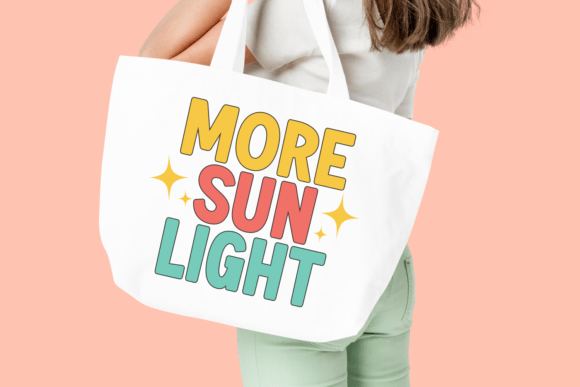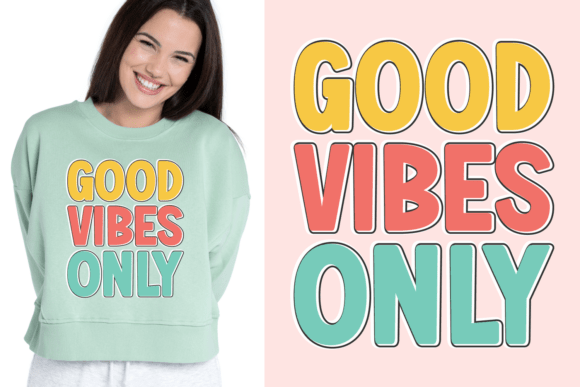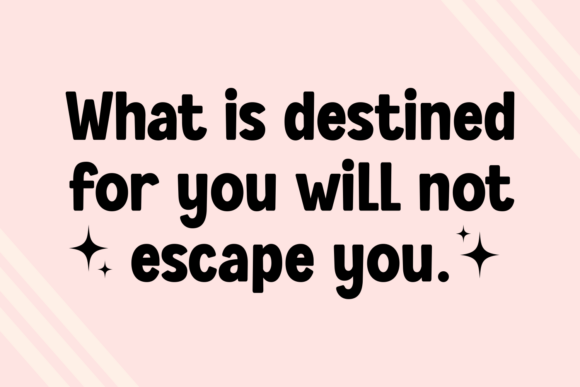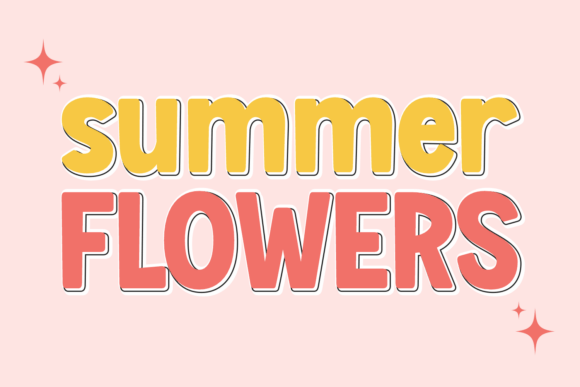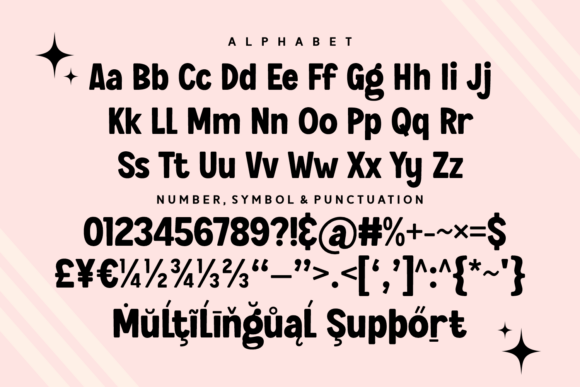
Unlock the Power of Bold Typography
Imagine you’re brainstorming ideas for your brand’s next big campaign, and you stumble upon the perfect concept – but the design just needs that one thing to make it pop. You’re scrolling through your font library, and suddenly, it hits you: the ultra-heavy display font that screams “we’re here to make a statement.” This is where the Black Chunky Font comes in – designed to anchor your designs with playful authority.
As a designer, you know that typography can make or break a design. The Black Chunky Font delivers a sense of professional, human-centric warmth and infectious creative energy to your visual identity. Its massive, blocky letterforms and soft, rounded corners make it an exceptional choice for streetwear branding, casual apparel graphics, and more.
Key Features of Black Chunky Font
- Unique Characteristic: The font’s distinctive chunky texture and bold lines give it a rugged, industrial look, perfect for creating a strong visual impact.
Designer Review: Black Chunky Font
At first glance, the Black Chunky Font seems like a bold and eye-catching choice for any design project. ✨ Its thick lines and sans-serif structure give it a modern and edgy feel that’s sure to grab attention.
One of the things that works well about this font is its versatility. ✨ It can be used for a variety of purposes, from headlines and titles to body text and even logos. It’s also highly legible, making it a great choice for any project where readability is key.
However, there are a few limitations to consider. ⚠️ For one, the font can come across as a bit too bold or overwhelming in certain contexts. It’s also not particularly suitable for projects that require a lot of subtlety or nuance.
Overall, I’d say the Black Chunky Font is a solid choice for designers who want to make a statement. Just be sure to use it thoughtfully and in moderation to avoid overwhelming the senses.
- ✨ Bold and eye-catching
- ✨ Highly legible
- ✨ Versatile
- ⚠️ Can be overwhelming in certain contexts
- ⚠️ Not suitable for projects requiring subtlety
Tips for Getting the Most Out of Black Chunky Font
Here are some tips for using Black Chunky Font effectively:
- Use Black Chunky Font for headings and titles to create a bold and eye-catching effect.
- Combine Black Chunky Font with other fonts to create a visually appealing contrast.
- Use Black Chunky Font for bold statements and emphasis.